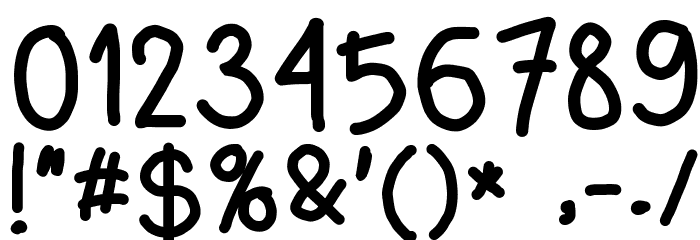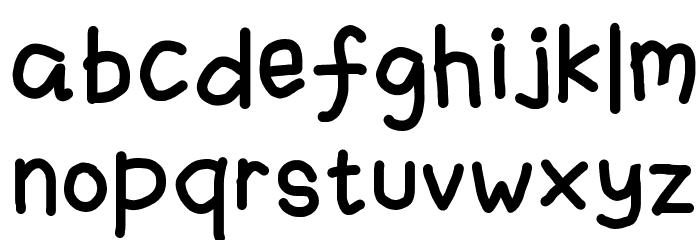
fanandiaade Font
This playful and informal font features a handwritten style with rounded edges and a casual appearance. The letters are slightly irregular, giving it a friendly and approachable feel. The uppercase and lowercase characters maintain a consistent style, with a slight slant that adds to the handwritten effect. Numbers and special characters are included, matching the overall aesthetic. The font's design is simple yet effective, making it suitable for a variety of creative projects where a personal touch is desired.
A playful, handwritten font with rounded edges and a casual style.
• Proposed Projects: Ideal for children's books, greeting cards, casual branding, and social media graphics.
• Overall Style: Casual, Playful
• Use Case: Headlines, Informal text, Creative projects